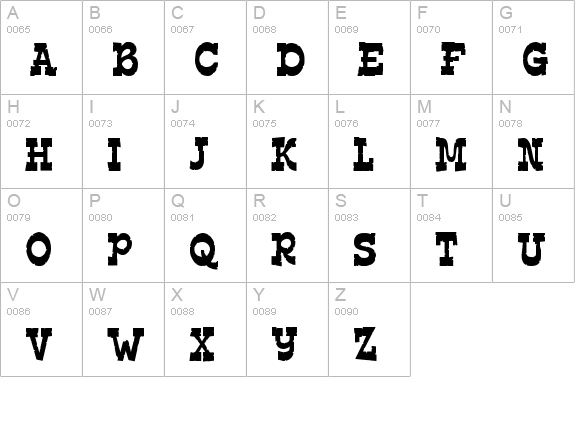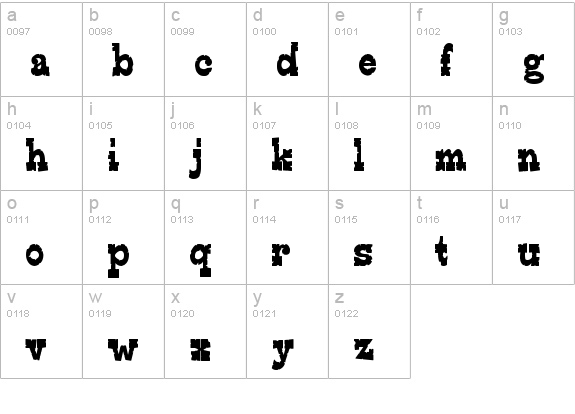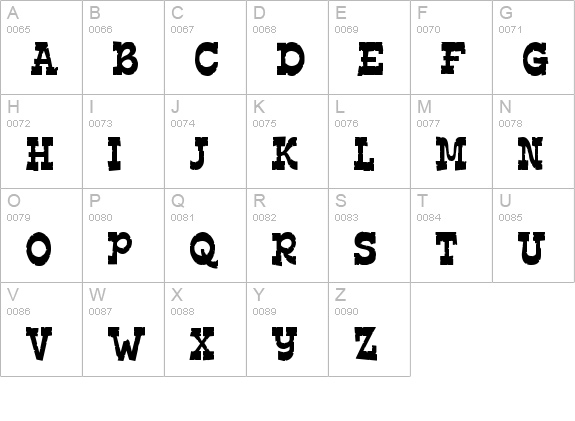
Edmunds Distressed Font Details
Edmunds Distressed font is a unique and captivating typeface that is sure to make a lasting impression. Its distressed appearance adds a touch of vintage charm, making it perfect for various design projects such as posters, logos, and packaging. With its rough edges and weathered texture, Edmunds Distressed font exudes a sense of authenticity and character. It effortlessly captures the essence of aged typography, giving your designs a timeless and nostalgic appeal. This versatile font can be used for both bold headlines and subtle captions, allowing you to create eye-catching visuals that demand attention. Its bold and well-defined letterforms ensure legibility, even at smaller sizes. What sets Edmunds Distressed font apart is that it is freely available to download at FontsMarket.com. This means that you can easily access this remarkable typeface without any additional cost, making it an ideal choice for designers on a budget or anyone looking for high-quality fonts without breaking the bank. Whether you are a professional designer or just starting out, Edmunds Distressed font offers endless possibilities to enhance your creative projects. Its distinct distressed style will add a touch of authenticity and uniqueness to your designs, making them stand out from the crowd. Don't miss the opportunity to elevate your designs with the captivating charm of Edmunds Distressed font. Download it for free at FontsMarket.com and let your creativity soar to new heights.